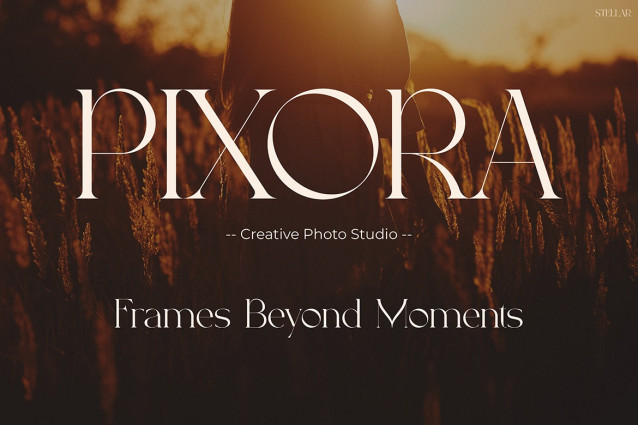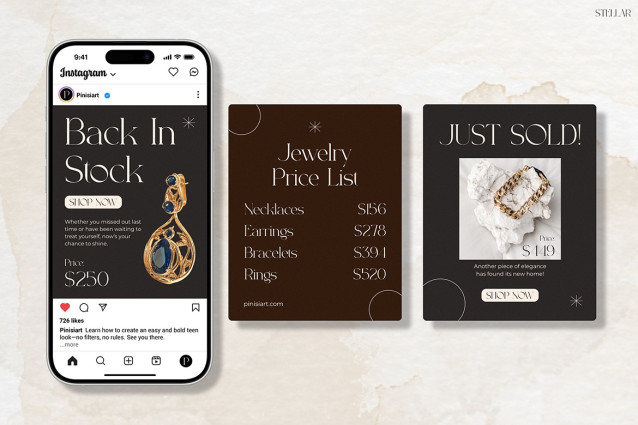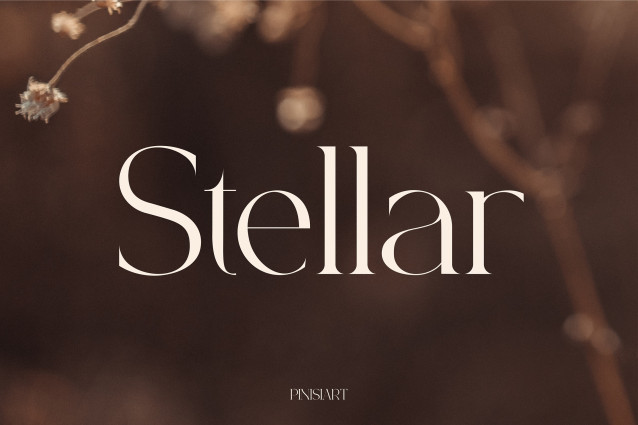
Stellar Font
Stellar Font is not just a typeface—it’s a visual statement that immediately elevates your creative work. With its sleek curves, balanced proportions, and refined details, this font captures the perfect harmony between minimalism and sophistication. Moreover, its aesthetic stands out effortlessly, ensuring that every word feels intentional and stylish. Whether you are designing for social media, branding, or luxury marketing, Stellar brings clarity and character to your message. As a result, your projects will always look polished and professional.